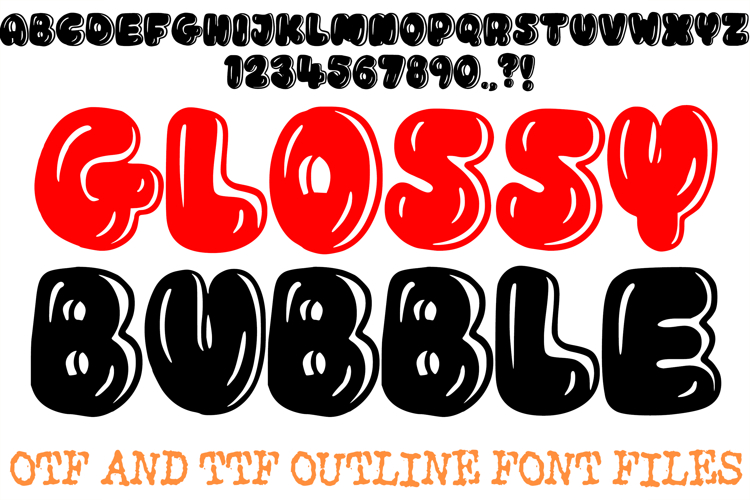
Glossy Bubble Alphabet Lettering Font Hand Drawn ABC OTF TTF
The Glossy Bubble Font is a bold, high-impact display typeface featuring voluminous, inflated letterforms designed to jump off the page. Characterized by its smooth, thick curves and strategic "reflective" highlight marks, this font is a premier choice for designers working on vibrant product packaging, energetic poster designs, modern street-style branding, and playful social media content.
The design captures a sense of tactile, pressurized energy, where every character feels as if it were a shiny, three-dimensional balloon. Whether you are building an identity for a high-energy beverage or designing bold apparel graphics, this font provides a fun, high-contrast aesthetic that is both cheerful and remarkably legible.
Why Your Designs Will Stand Out
Glossy Reflective Accents: Built-in internal "shine" marks give the letterforms a 3D, polished look, adding a layer of depth and professional finish to digital layouts.
Voluminous Inflated Construction: The heavy, rounded weight of the alphabet provides a friendly and approachable "pop" aesthetic that commands attention.
Dynamic Rounded Shapes: The smooth, swelling curves of each character create a rhythmic visual harmony, perfect for high-visibility headlines.
High-Visibility Display: Bold outlines and solid forms ensure that your text remains impactful and clear against various backgrounds, from print to screen.